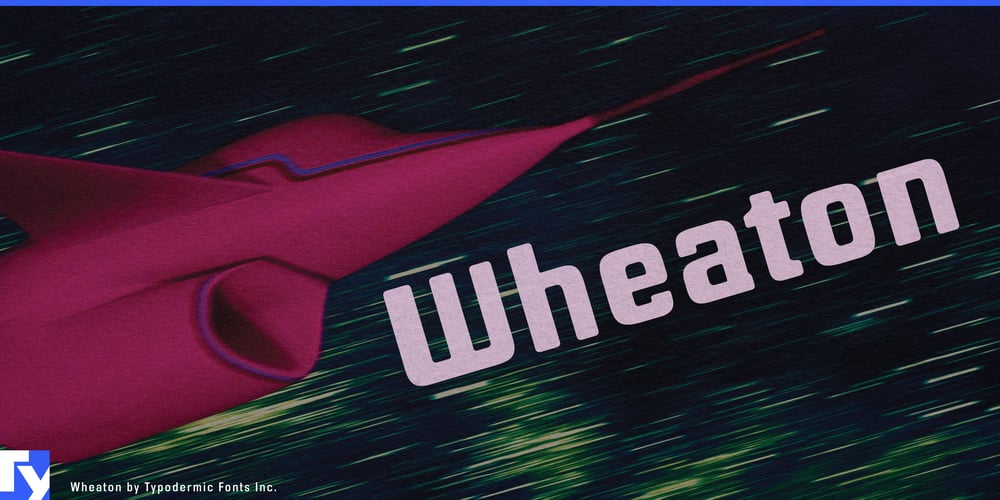
Wheaton Font Family was designed by Ray Larabie and published by Typodermic. Wheaton contains 1 styles and family package options. Step into the typographic time machine with Wheaton—a headline font that bridges the gap between retro charm and futuristic flair. This robust typeface teleports your message across decades, fusing the electronic aesthetics of the 1980s with the sleek sensibilities of tomorrow’s design.Wheaton’s DNA is a perfect splice of nostalgia and innovation. Its clean lines and futuristic curves echo the optimistic tech dreams of the past, while softened edges and fluid forms speak the language of contemporary design. It’s as if the glowing text from a vintage arcade cabinet evolved to fit seamlessly into a holographic display. But Wheaton isn’t just about visual time travel. Its scientific elegance and industrial wonder make it the ideal choice for brands and projects that push boundaries. From cutting-edge tech startups to retro-inspired fashion lines, Wheaton lends an air of technological assurance that’s impossible to ignore.This typographic chameleon adapts effortlessly across mediums. On screens, it radiates with the warm glow of CRT monitors past. In print, its subtle details and confident strokes command attention, turning every headline into a statement piece. Wheaton doesn’t just caption your design—it becomes an integral part of your visual story. Wheaton speaks fluently in the mother tongue of most Latin-based European writing systems. From the fjords of Norway to the plains of Hungary, from the Celtic shores of Ireland to the sun-drenched coasts of Portugal, Wheaton translates your message with retro-futuristic flair. It’s equally at home spelling out “Welcome to the future” in English or crafting nostalgic movie titles in Polish.Why settle for typography that’s stuck in a single era when you can have Wheaton—a font that dances through time? It’s a portal to design dimensions where past and future collide in perfect harmony.